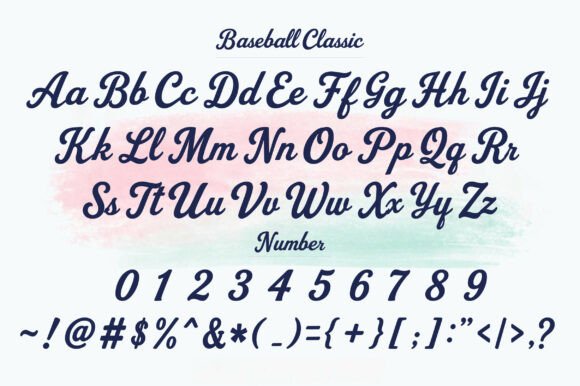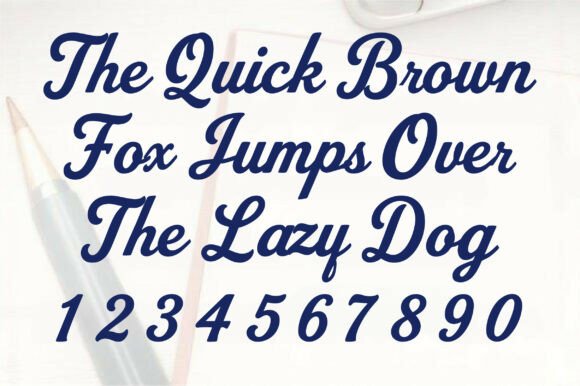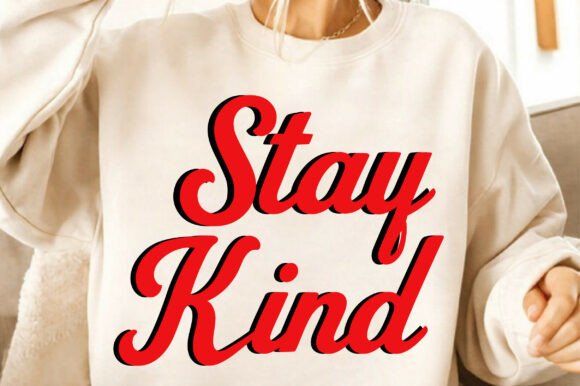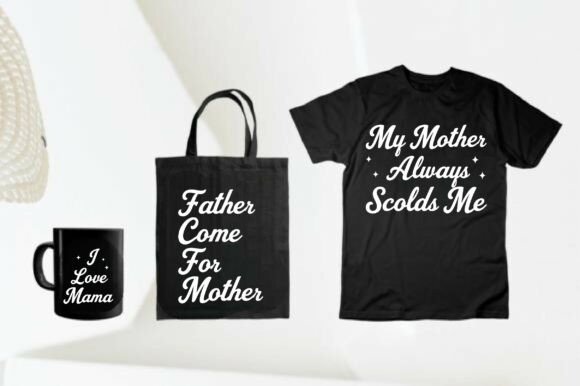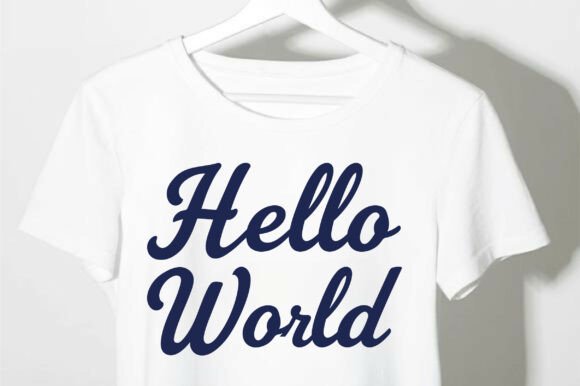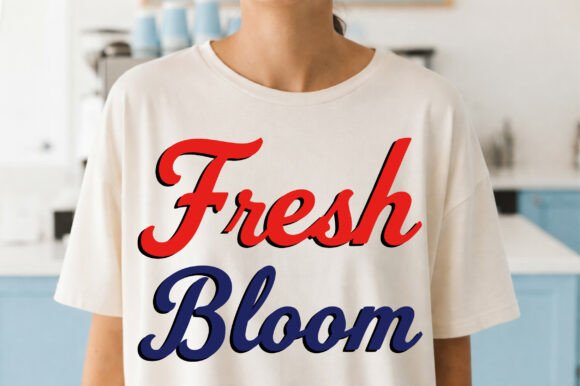
Introducing the Baseball Classic Font: A Timeless Choice for Sports-Inspired Designs
Are you a designer or crafter looking for a font that captures the essence of vintage sports style? Look no further than the Baseball Classic Font. This bold and stylish retro script font is perfect for creating logos, t-shirts, branding materials, posters, quotes, and merchandise designs that evoke the nostalgia of America’s favorite pastime.
The Perfect Blend of Style and Versatility
Baseball Classic is more than just a font – it’s a design statement. With its vintage sporty feel, this font is sure to add a touch of classic charm to any project. The font includes uppercase, lowercase, numbers, and punctuation, making it incredibly versatile and easy to use for a wide range of creative applications.
Key Features of the Baseball Classic Font
• Bold and Stylish: The Baseball Classic Font boasts a bold and stylish design that’s perfect for making a statement.
• Retro Script Style: The font’s retro script style gives it a unique and eye-catching look that’s reminiscent of vintage sports equipment and branding.
• Vintage Sporty Feel: The font’s sporty feel makes it perfect for designs that require a touch of nostalgia and classic charm.
• Uppercase, Lowercase, Numbers, and Punctuation: The font includes a wide range of characters, making it easy to use for a variety of creative applications.
• Perfect for Logos, T-Shirts, and More: The Baseball Classic Font is ideal for designing logos, t-shirts, branding materials, posters, quotes, and merchandise designs.
Why Choose the Baseball Classic Font?
There are many fonts to choose from, but the Baseball Classic Font stands out from the rest. Here are just a few reasons why:
• Unique and Eye-Catching: The font’s unique retro script style makes it a standout choice for designers and crafters looking to add a touch of personality to their work.
• Easy to Use: The font’s versatility and wide range of characters make it easy to use for a variety of creative applications.
• Perfect for Sports-Inspired Designs: The font’s vintage sporty feel makes it a perfect choice for designs that require a touch of nostalgia and classic charm.
Design Ideas Using the Baseball Classic Font
The Baseball Classic Font is incredibly versatile, making it perfect for a wide range of design applications. Here are a few ideas to get you started:
• Logo Design: Use the Baseball Classic Font to create a bold and stylish logo that’s perfect for sports teams, equipment brands, or any business that wants to evoke a sense of nostalgia and classic charm.
• T-Shirt Design: The font’s bold and stylish design makes it perfect for t-shirt designs that require a touch of personality and style.
• Poster Design: Use the Baseball Classic Font to create eye-catching posters that showcase your favorite sports team or player.
• Merchandise Design: The font’s versatility makes it perfect for designing a wide range of merchandise, from hats and bags to water bottles and phone cases.
The Baseball Classic Font is a timeless choice for designers and crafters looking to add a touch of vintage sports style to their work. With its bold and stylish retro script design, this font is perfect for creating logos, t-shirts, branding materials, posters, quotes, and merchandise designs that evoke the nostalgia of America’s favorite pastime. So why wait? Download the Baseball Classic Font today and start creating your own sports-inspired designs!